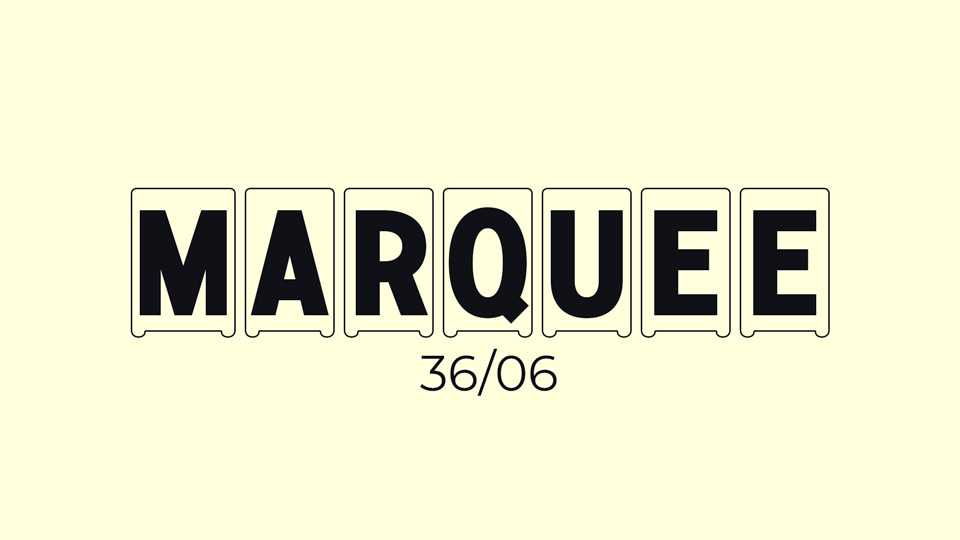
Download Marquee font, a display typeface inspired by theatre marquee signs. Marquee font has curved humanist sans lettering style with small optical corrections, which brings out the sign painter look.